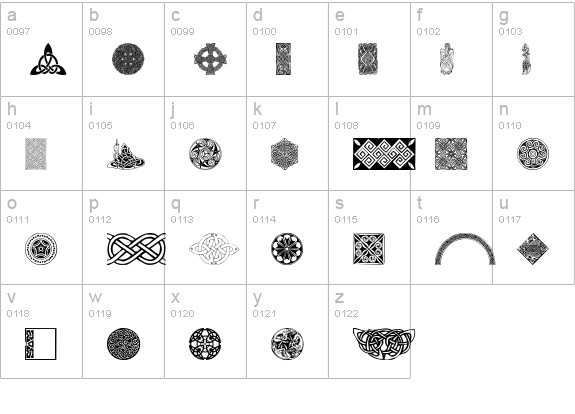
Celtic Elements III Font Details
Celtic Elements III is a captivating and intricate font inspired by ancient Celtic symbols and designs. Its ornate and decorative style effortlessly captures the essence of Celtic artistry, making it a perfect choice for projects that require a touch of mystique and tradition. The elaborate twists and turns of the letterforms exude a sense of magic and enchantment, transporting your designs to a world of folklore and legend. This stunning font is not only visually striking but also versatile, suitable for a wide range of design applications including branding, packaging, invitations, and more. Whether you're looking to add a touch of Celtic charm to your project or seeking a unique way to make a statement, Celtic Elements III is sure to leave a lasting impression. Best of all, Celtic Elements III is available for free download at FontsMarket.com, allowing you to access this enchanting font with ease. Don't miss out on the opportunity to enhance your designs with the timeless beauty of Celtic Elements III.